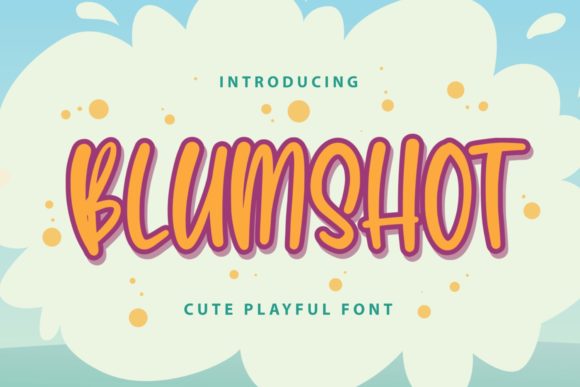
The Charm of Blumshot Font: A Designer’s New Best Friend
I’ll never forget the time I was working on a branding project for a children’s party planning service. I had the logo concept nailed, but I just couldn’t find the right font to match the playful, whimsical vibe. That was until I stumbled upon Blumshot Font. ✨ It was love at first sight! The cute, casual handwritten style instantly resonated with the project’s tone, and I knew I’d found the perfect fit.
An Honest Review of Blumshot Font
• ✅ Extremely friendly and approachable feel, perfect for designs that need a personal touch
• ✨ Wide range of use cases, from logos and branding to social media and crafty DIY projects
• 💕 Beautifully crafted with a lot of character and personality
While Blumshot Font is an excellent choice for many projects, there are a few things to keep in mind. 🤔
• ⚠️ May not be the best fit for very formal or corporate designs, as it can come across as too casual
• ⚠️ Limited availability of certain special characters or glyphs, which may be a consideration for specific projects
The Story Behind Blumshot Font
Blumshot Font was created by a talented type designer with a passion for handwriting and lettering. The story goes that the designer was inspired by the playful, cursive scripts of childhood notebooks and wanted to capture that carefree spirit in a digital font. 💫 The result is a font that’s both charming and versatile, perfect for a wide range of creative projects.
Q: Is Blumshot Font suitable for body text?
A: While Blumshot Font is highly legible, it’s best suited for headings, titles, and short paragraphs. For longer body text, you may want to choose a more traditional serif or sans-serif font.